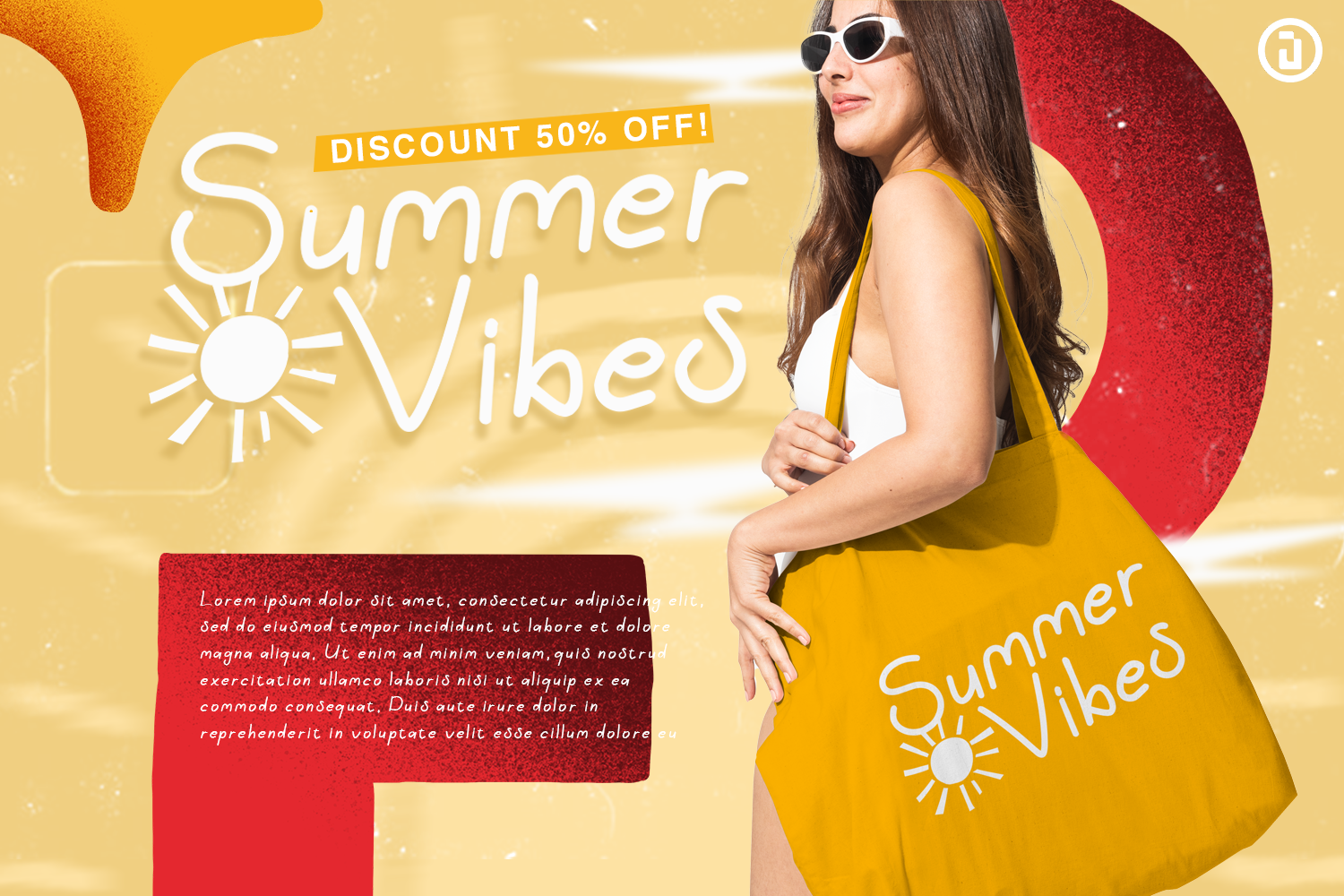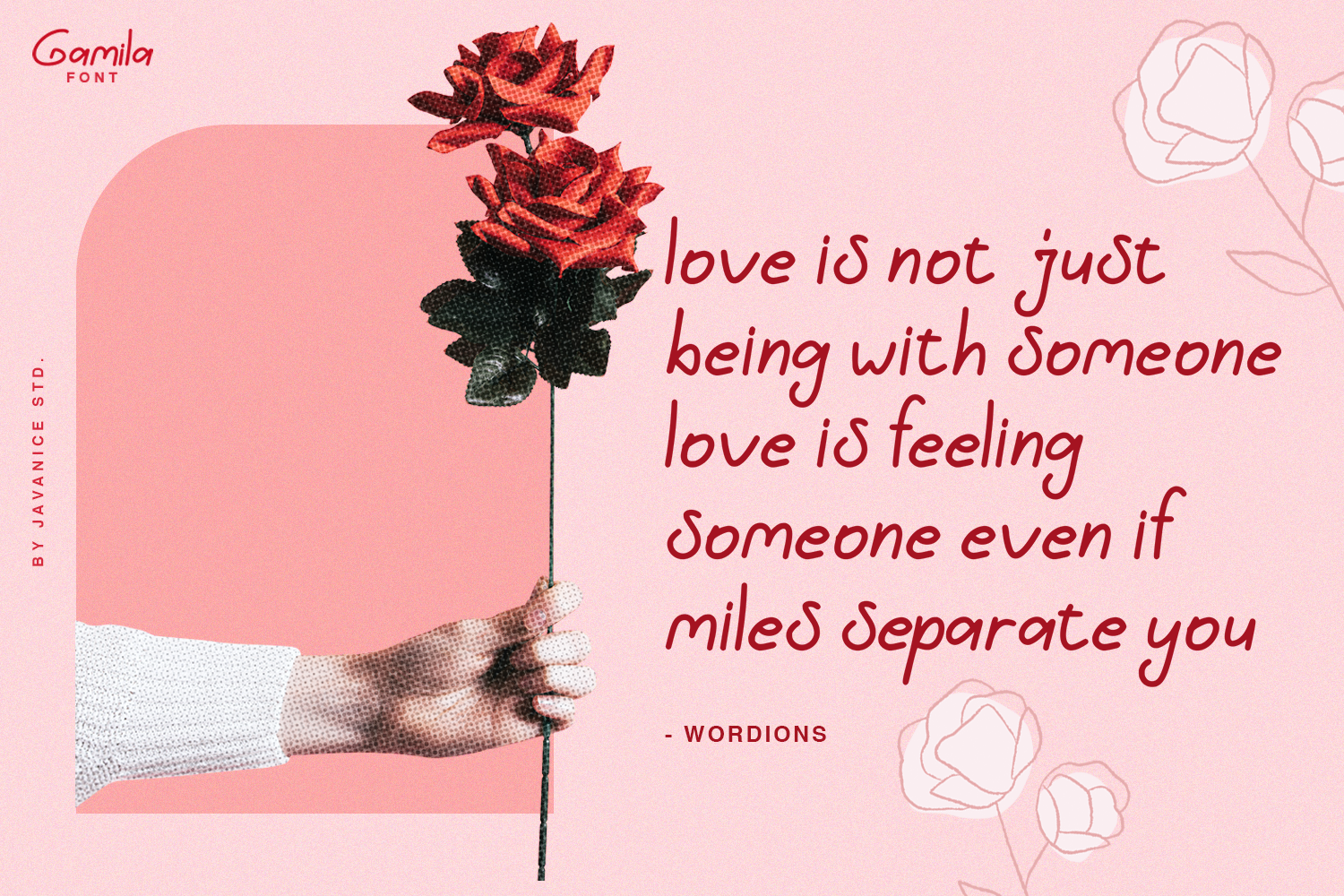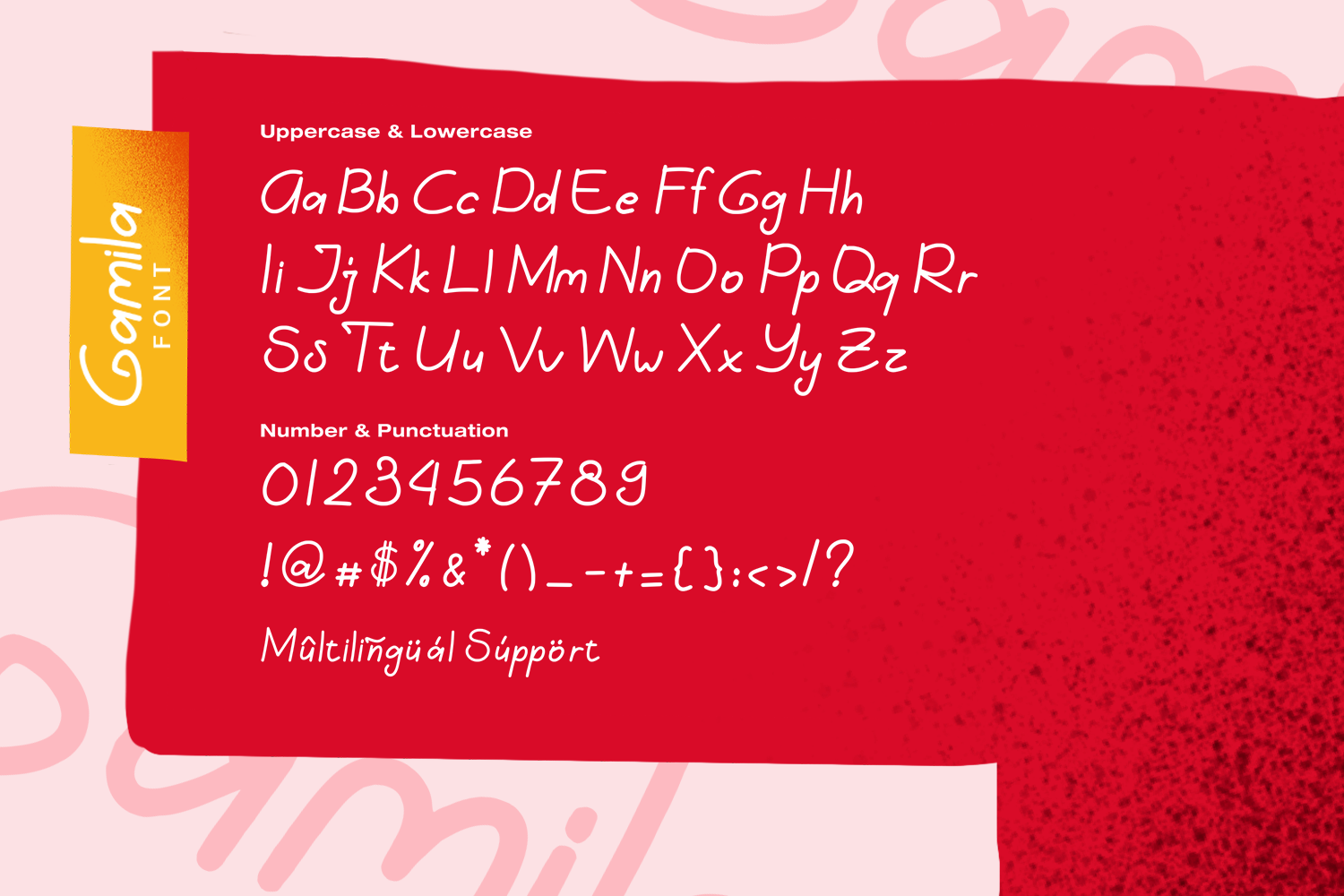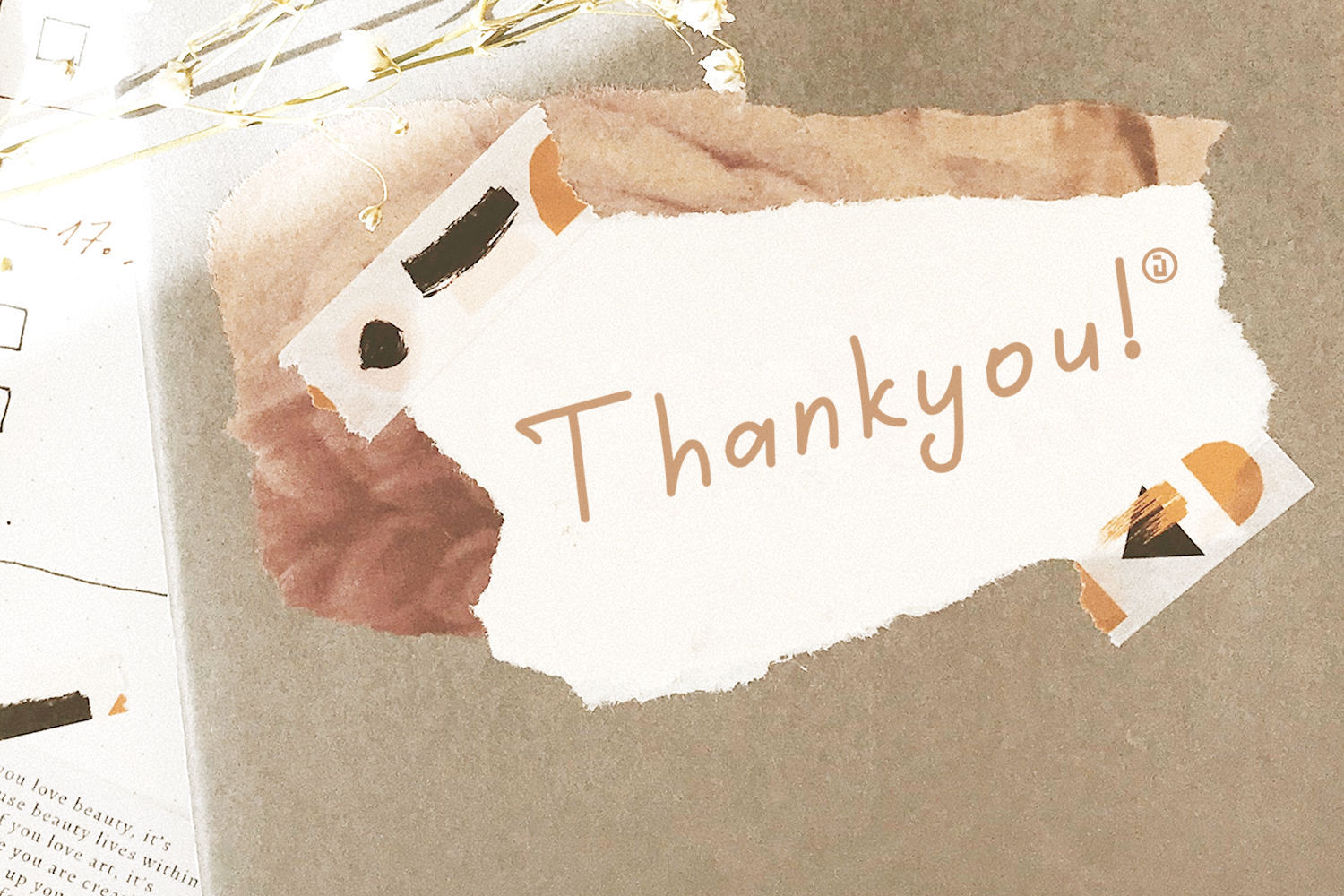
Gamila Font
Gamila Handwritten Font
This is a Monoline Handwritten font. Gamila is perfect for branding project, apparel, labels, magazines, books, greeting / wedding cards, packaging, fashion, make up, stationery, and any type of advertising purpose or just used to express words above the background.